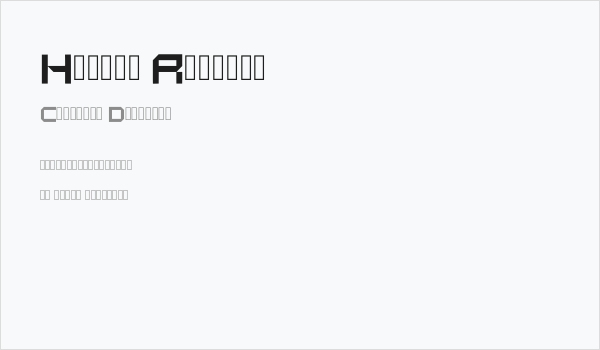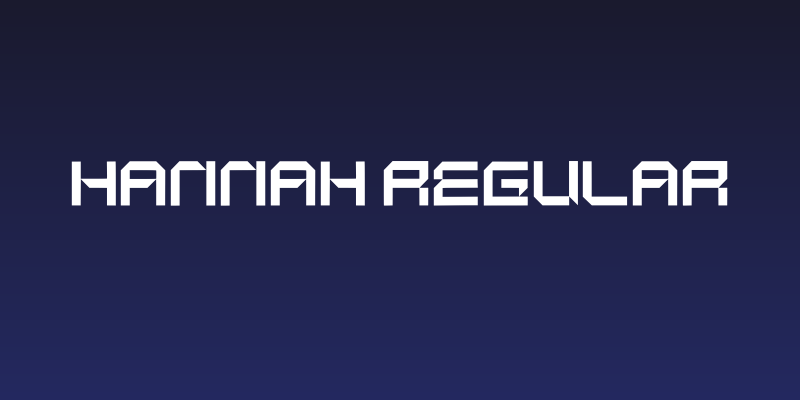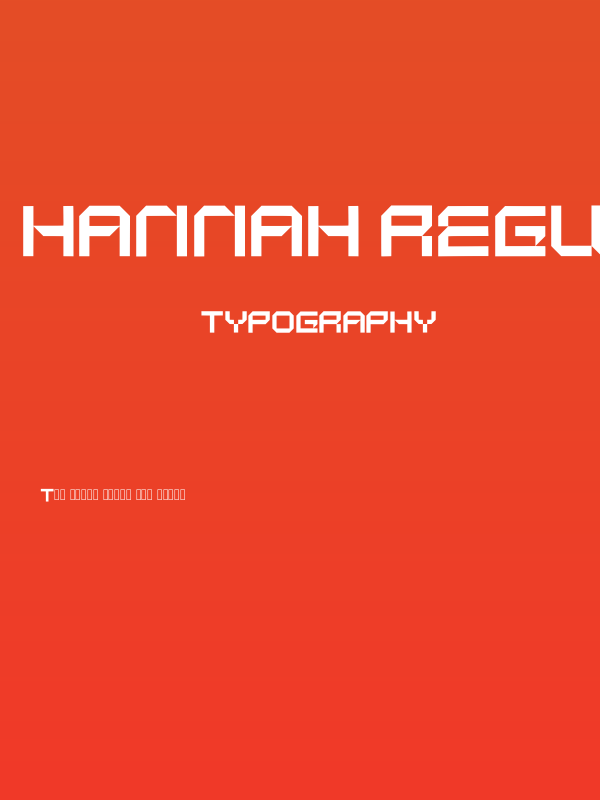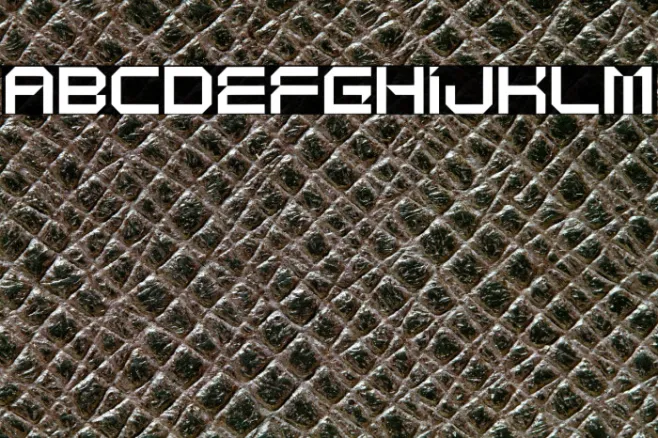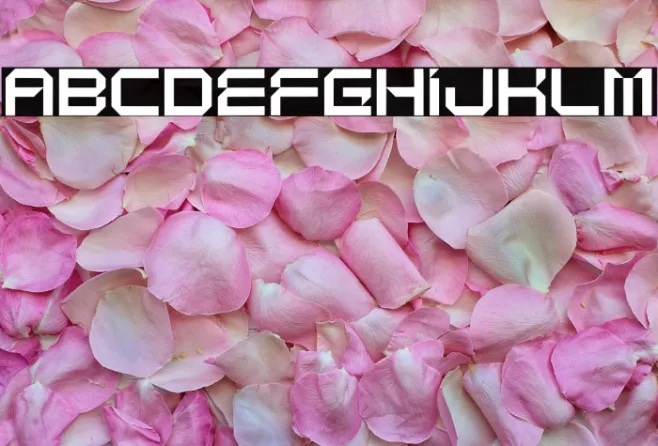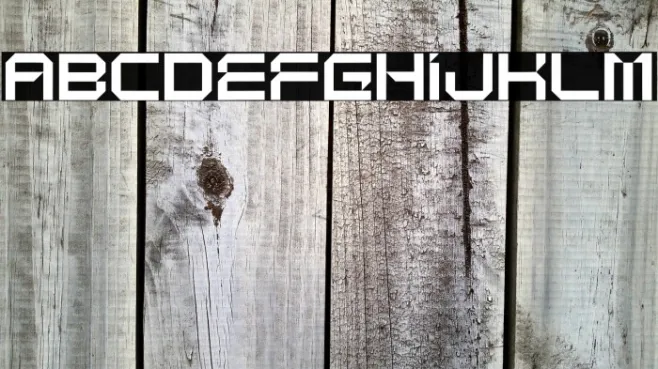
Hannah Regular Font
Hannah Regular Description
This font features a bold, geometric design with a futuristic aesthetic. The uppercase letters are constructed with sharp angles and straight lines, creating a sense of precision and modernity. The absence of curves gives it a distinctly digital feel, reminiscent of early computer graphics or sci-fi themes. The characters are uniformly wide, contributing to a cohesive and structured appearance. This font is ideal for projects that require a strong, impactful visual presence, such as technology branding, video game titles, or modern art installations.
| Proposed Projects | Ideal for technology branding, video game titles, modern art installations, and sci-fi themed designs. |